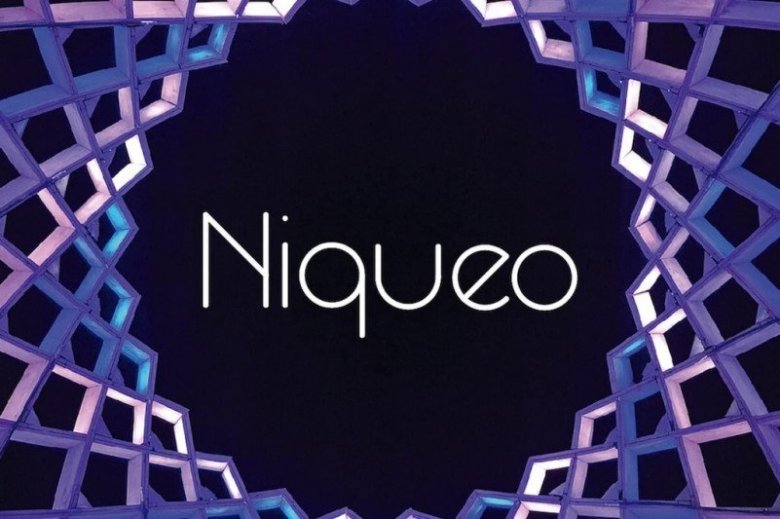
Niqueo Font
Niqueo typeface designed by Nico rodriguez is sans serif monoline font with multilingual support. This font includes uppercase, lowercase, numerals, and symbols. Niqueo is great for headlines, documents, magazines, titles, apparel, posters and more.